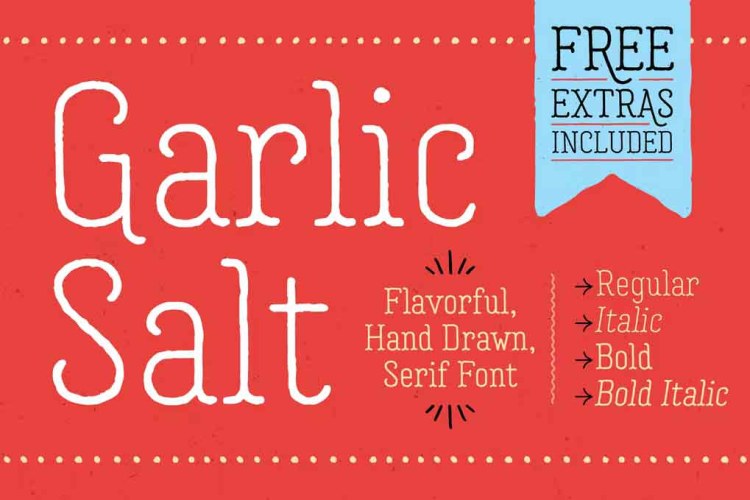
Garlic Salt Font Family
Garlic Salt is a flavorful, hand drawn, serif font family. Drawn with a single marker pen, it has a monoline appearance giving it a distinct mix of whimsical and modern qualities. The semi-condensed proportions are sturdy and space-saving for your layouts.
Choose from either the regular weight or a slightly thicker line in the bold weight to suit your needs. It works great set large as a display font to show off the hand drawn texture, but it also is pleasantly readable set in smaller point sizes because of the carefully drawn letterforms.
BONUS: Garlic Salt also comes with a free Extras font of matching ornaments and dingbats to complement your designs!
Special features include stylistic alternates and swashes to enhance the type to your liking. Those glyphs are also PUA-encoded to make them accessible in software that is not OpenType-savvy. This font has extensive Latin language support.
Reports, white papers and book interiors hold the eye longer when the text face has real serifs; Garlic Salt Font Family keeps that rhythm without looking old-fashioned.
Food, spirits and cosmetics brands lean on serif wordmarks to suggest age and care. Garlic Salt Font Family gives that signal at wordmark size.
Set Garlic Salt Font Family for the body of an award or a diploma and keep the recipient name in a script; the pairing is what makes a document feel official.
It sits in the Serif Fonts group and reads as bold, condensed, display, handwritten. That makes it a candidate wherever those qualities help: headings, packaging, social graphics and brand work. Set it at the size you plan to use before deciding.